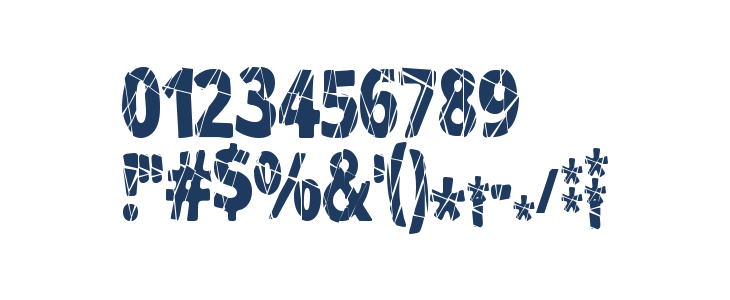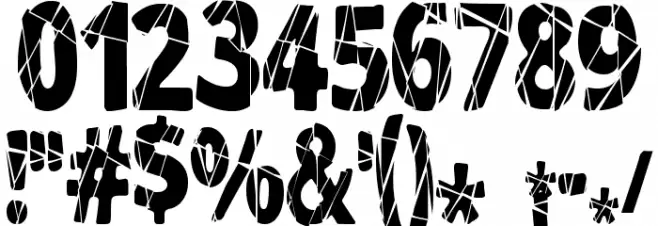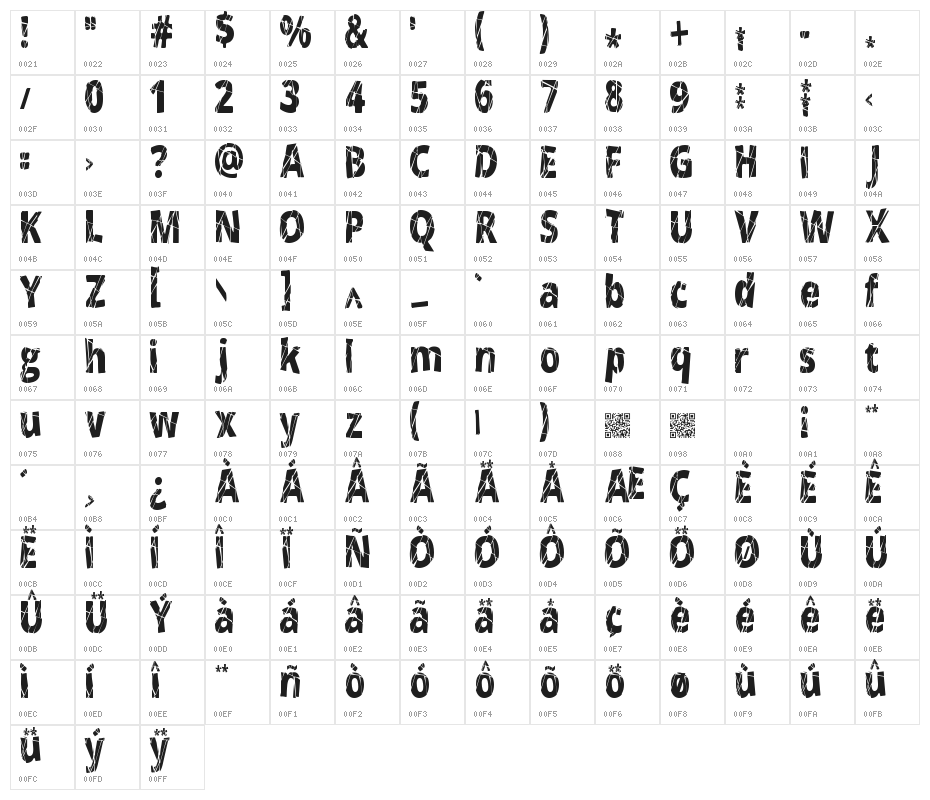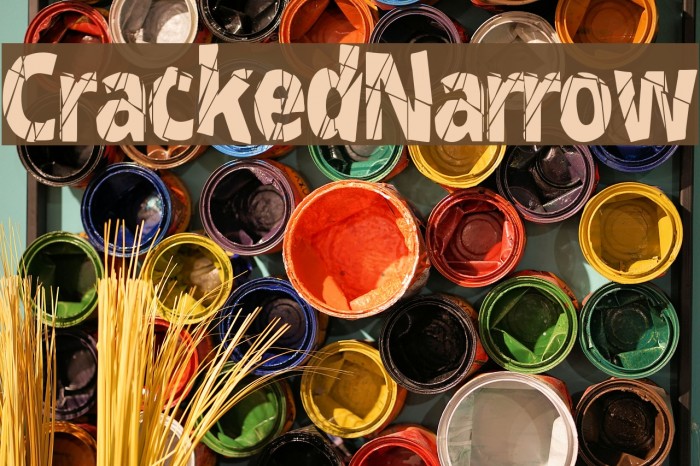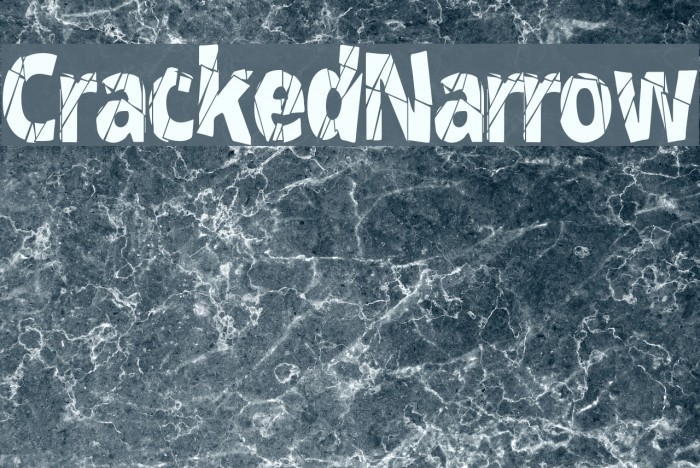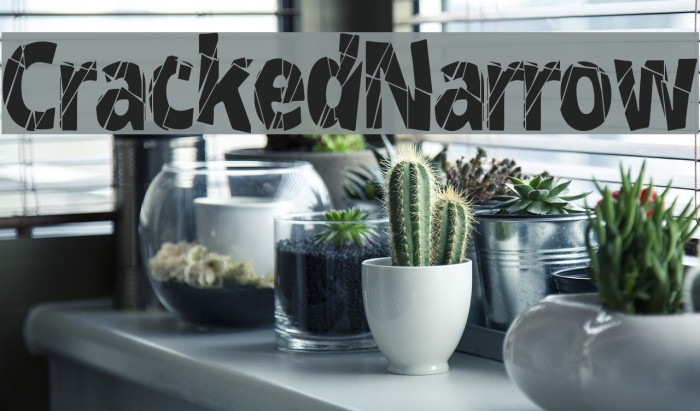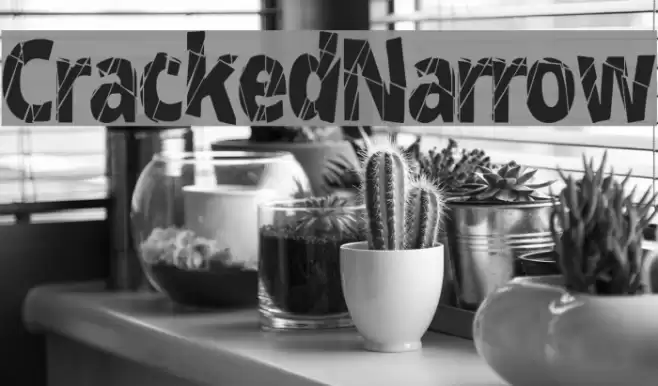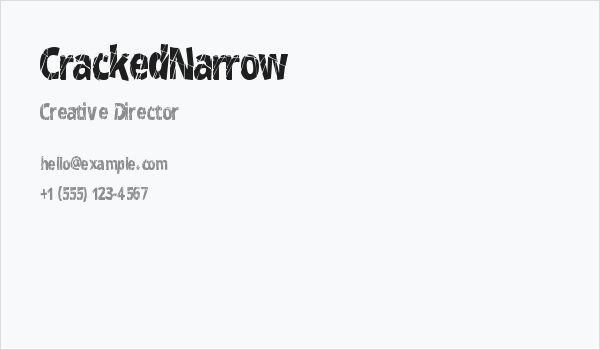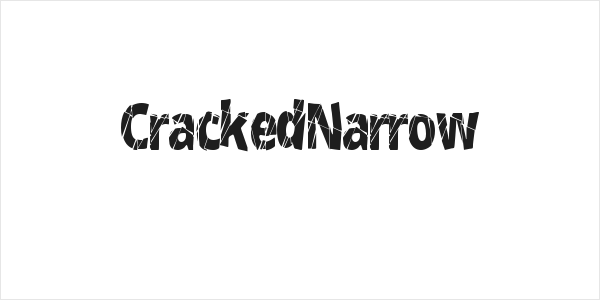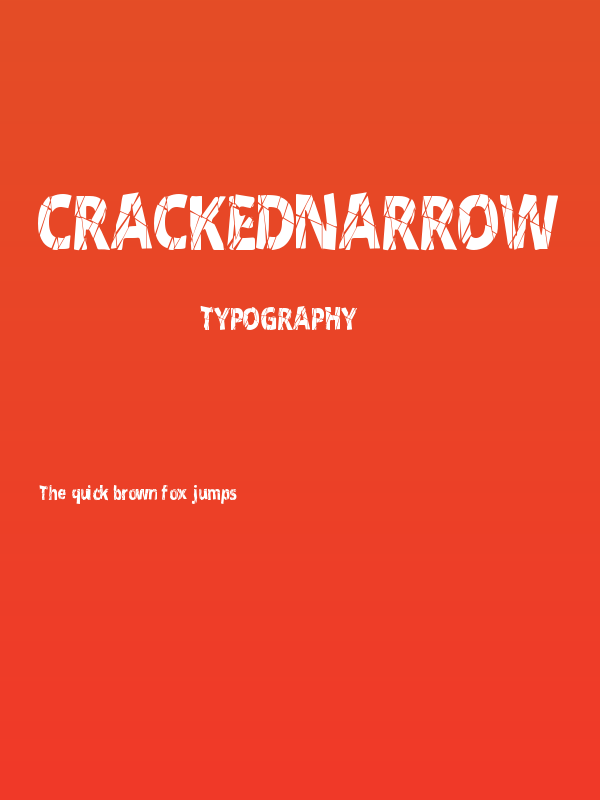
CrackedNarrow Font
CrackedNarrow Description
This font features a bold and edgy design with a cracked, distressed appearance. The characters are thick and robust, with irregular lines that give the impression of shattered glass or fractured surfaces. This unique style creates a sense of movement and chaos, making it ideal for projects that require a strong visual impact. The uppercase and lowercase letters maintain a consistent width, while the numbers and special characters follow the same cracked theme, ensuring uniformity across all text. The font's distinct look makes it suitable for creative and unconventional designs.
| Overall Style | Modern, Edgy |
| Proposed Projects | Ideal for album covers, posters, graffiti art, and edgy branding projects. |